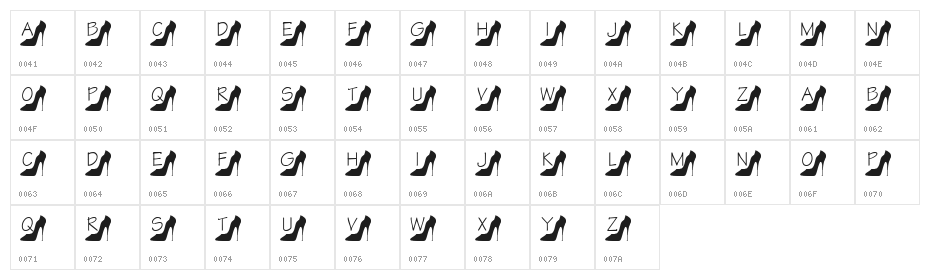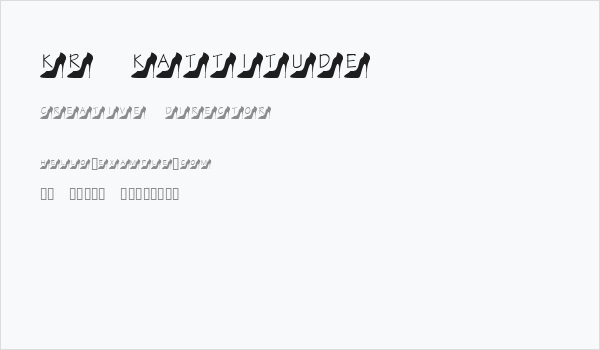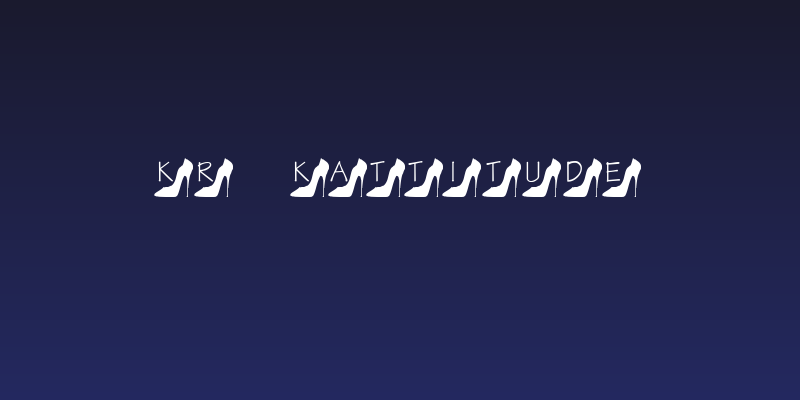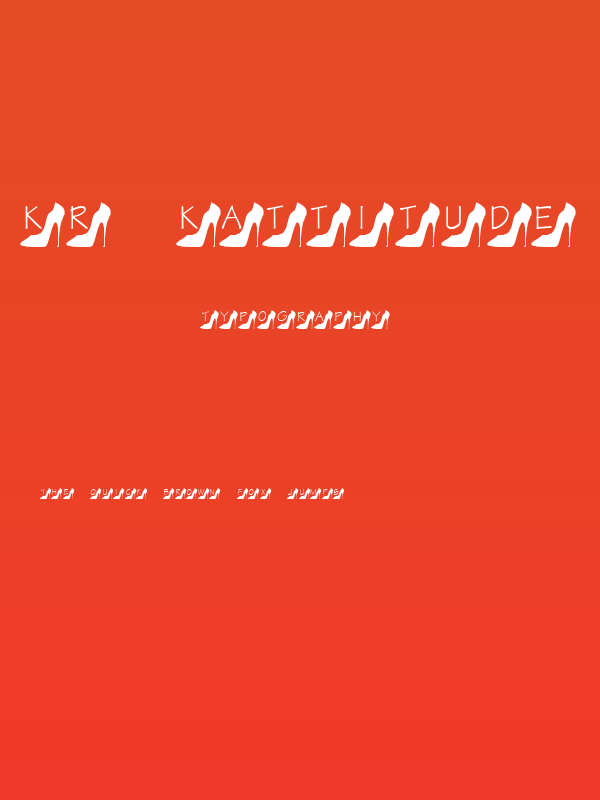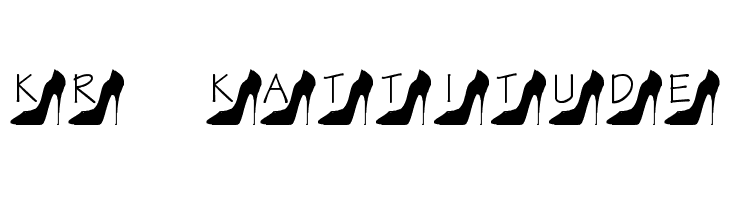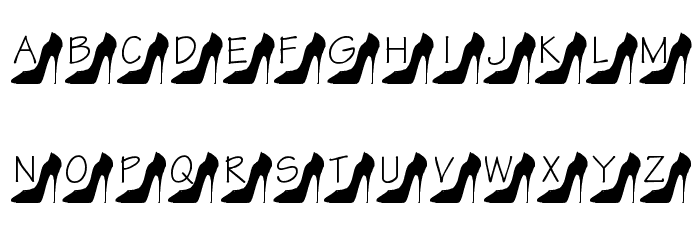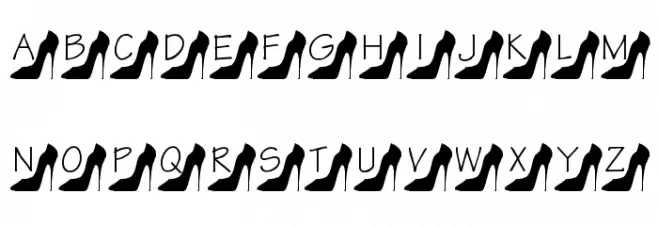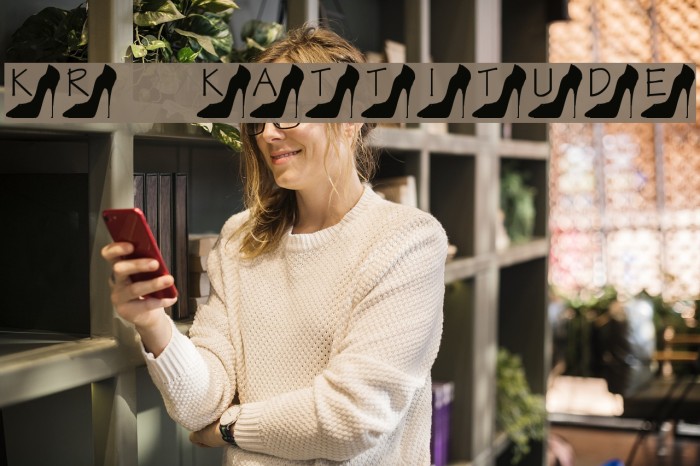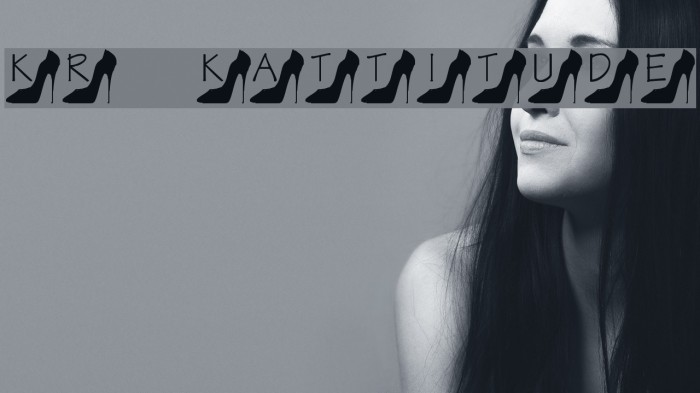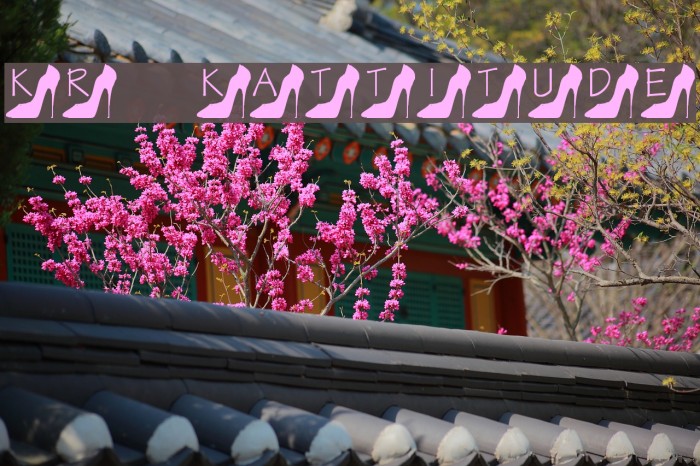
KR Kattitude Font
KR Kattitude Description
This font features a unique and playful design where each letter is creatively integrated with a high-heeled shoe silhouette. The uppercase letters are bold and stylish, with each character seamlessly blending into the shape of a stiletto, giving it a fashionable and chic appearance. The font is decorative and eye-catching, making it ideal for projects that require a touch of elegance and flair. The design is consistent across all letters, maintaining a uniform look that emphasizes the high-fashion theme. This font is perfect for branding, fashion-related projects, or any creative endeavor that seeks to make a bold statement.
| Overall Style | Modern, Fashionable |
| Use Case | Logos, Headlines, Branding |
| Proposed Projects | Ideal for fashion branding, magazine covers, event invitations, and creative advertising campaigns. |